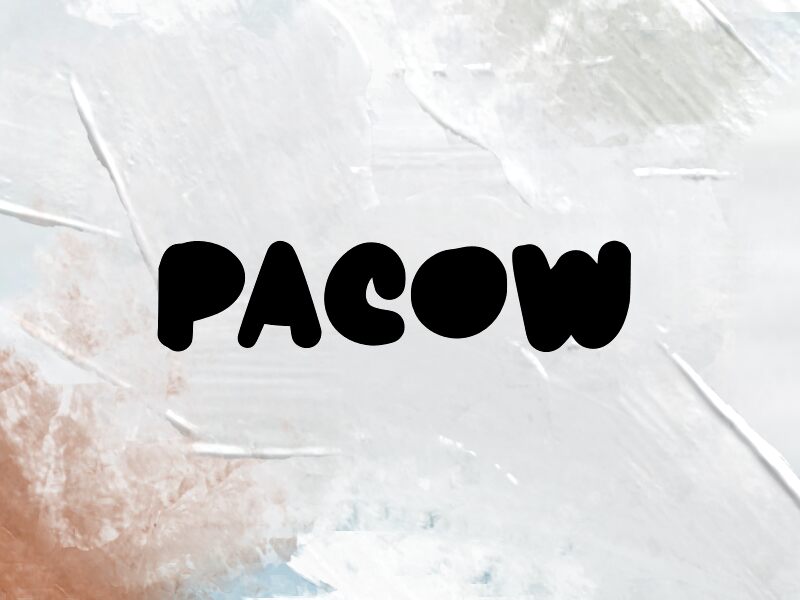
Pacow font by wep is a cartoon, lively typeface with youthful, playful qualities heavily reminiscent of retro styles. Its bubbly design holds a modern appeal and an informal style fit for a variety of use cases. Furthermore, its high-impact letters and attention-grabbing glyphs make it an ideal tool for adventurous designers, not afraid to test the limits in their designs.
This font can be used in personal projects and its youthful style is best displayed in children’s books, activity booklets, school projects, posters, flyers, brochure designs, branding designs, or online projects. Its retro-inspired designs make it a must-have for décor projects, wall art, mural designs, postcards, invitations, book covers, album covers, and video games.
Pacow is a stylish and modern free font that combines elegance with versatility, making it a perfect choice for various design projects. Its unique letterforms are ideal for branding, signage, and any creative work where a contemporary aesthetic is desired. Pacow can be easily downloaded and utilized for both personal and commercial use, ensuring you have the freedom to express your creativity.